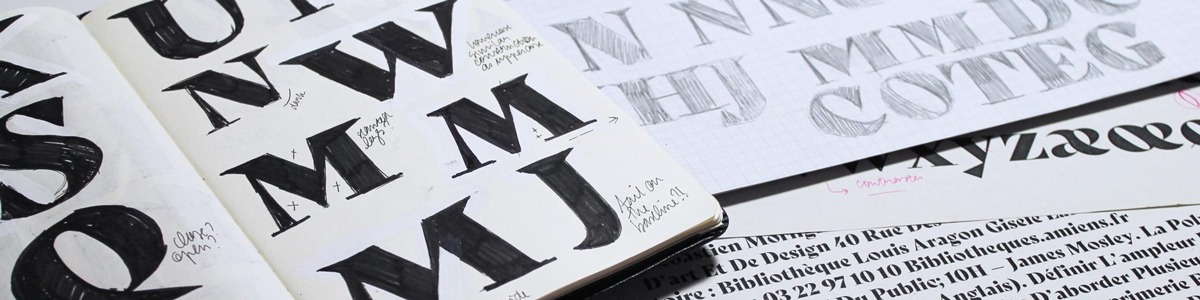
Based in the trendy district of Kreuzberg in Berlin, Germany, FontFont was established in 1990 when FontShop founder Erik Spiekermann and fellow type designer Neville Brody wanted to build a foundry where type was made for designers, by designers; a place where type designers were given a fair and friendly offer and where true type magic was made. “From the very beginning,” representatives of the foundry say, “we wanted to bend the rules and test typographic boundaries, to build a library with a collection like no other; a range of typefaces that had different styles, different purposes, that was contemporary, experimental, unorthodox, and radical.”
With a collection of over 2,500 typefaces, FonFont has one of the largest libraries of original, contemporary fonts out there. It boasts both long-time bestsellers like FF Meta, FF DIN, FF DAX, FF Scala, FF Kievit, and remarkable newcomers such as FF Chartwell, FF Tisa, and FF Mark.
Well known type-world celebrities have designed families for the foundry, including Erik Spiekermann, Hannes von Döhren, Martin Majoor, Albert-Jan Pool, Erik van Blokland, Mike Abbink, Xavier Dupré, and Lukasz Dziedzic. “At the heart of what we do is a heady mix of intuition, passion, a sprinkling of serendipity, an eye for detail, and a dash of attitude. From the first ever random font FF Beowolf to the release of our Web FontFonts in 2010, we place creativity at the forefront and pride ourselves on producing the highest quality typefaces that are technically robust and that continually innovate.”